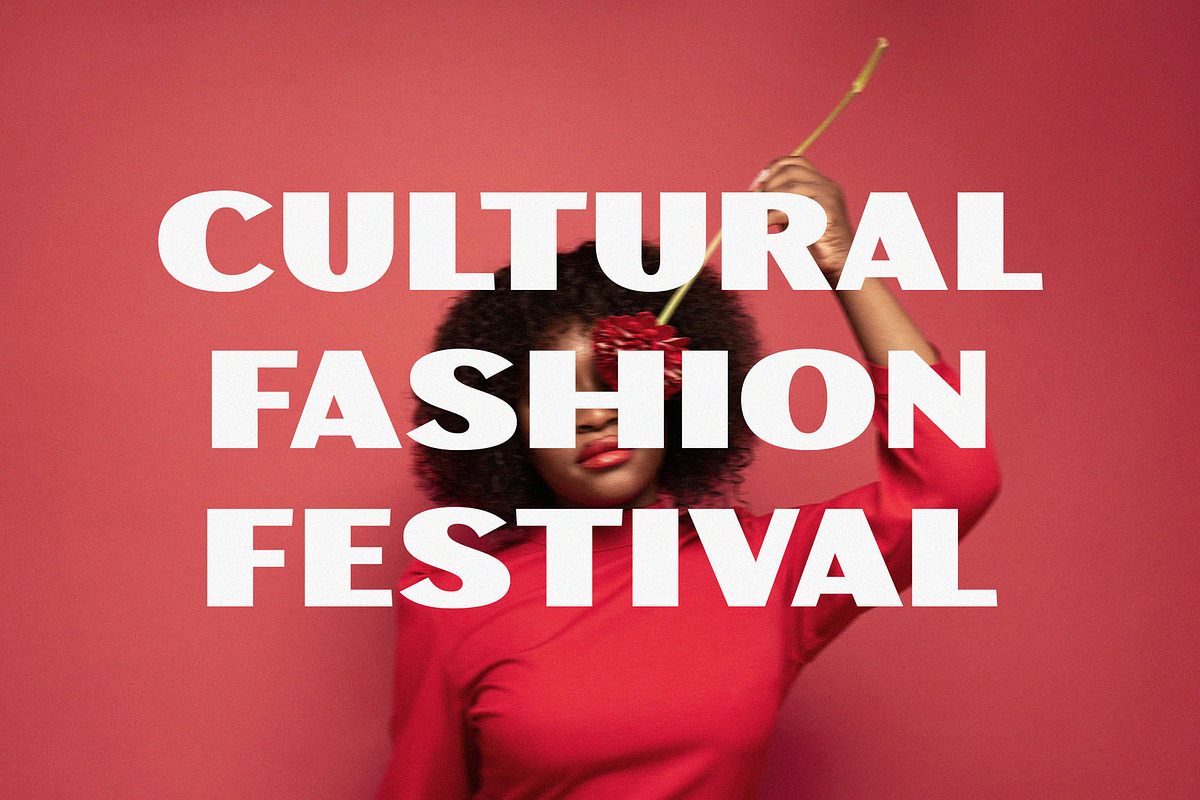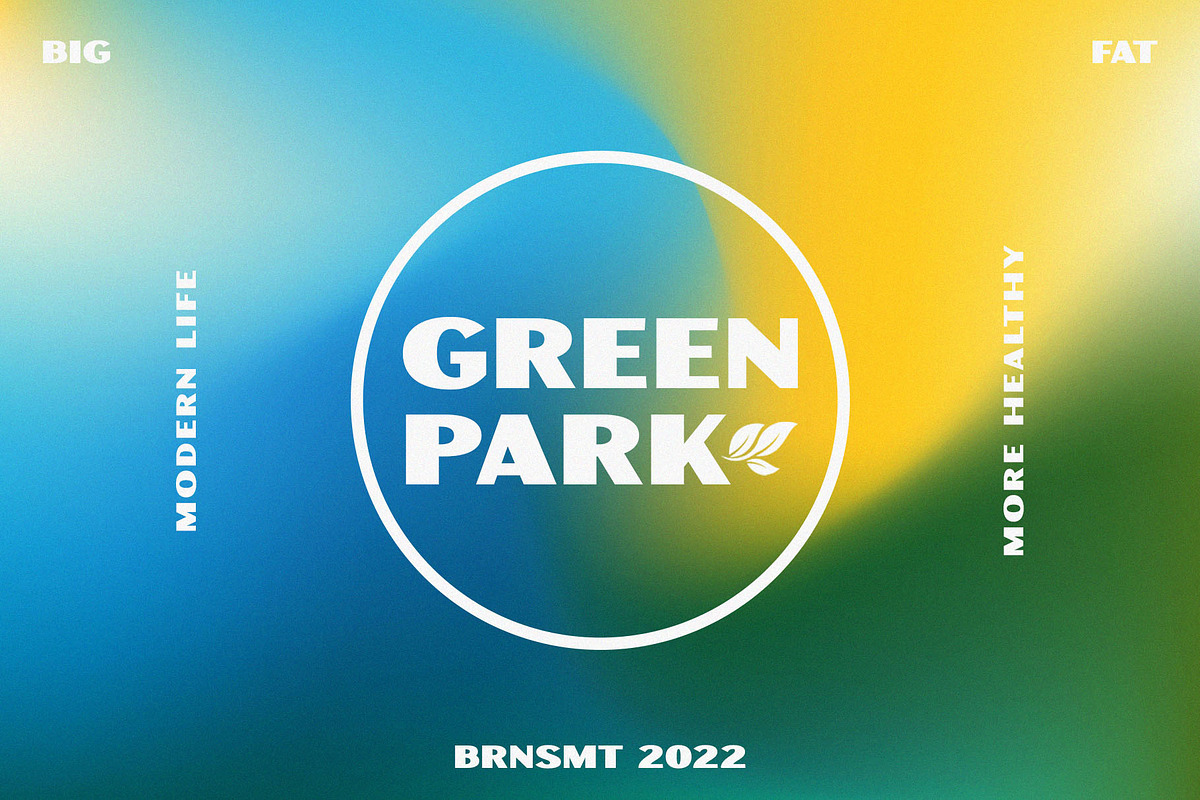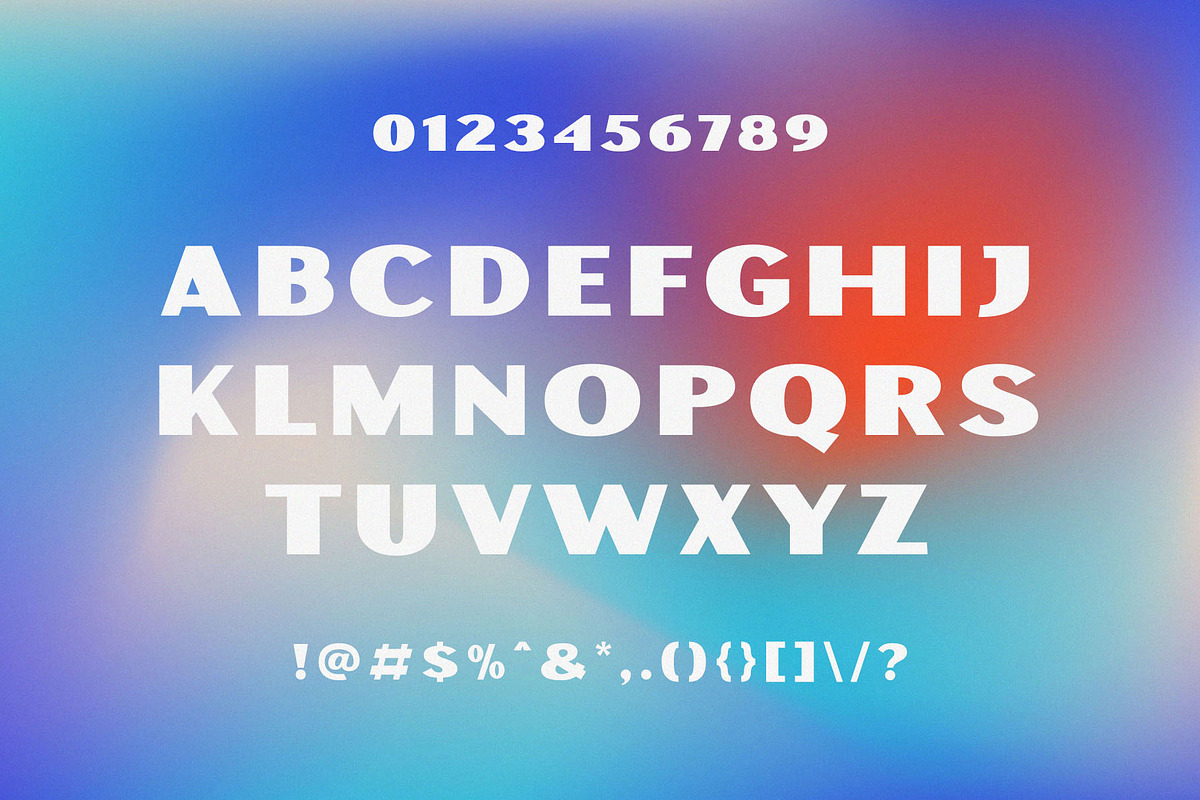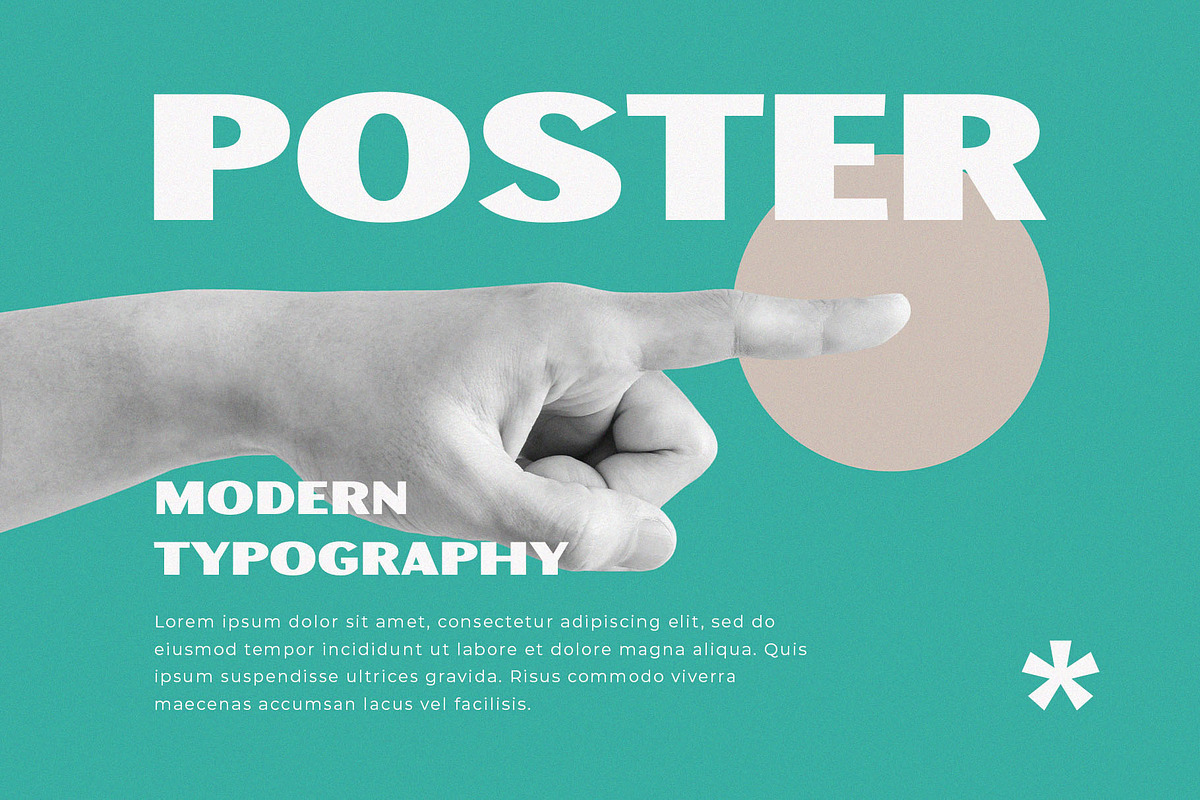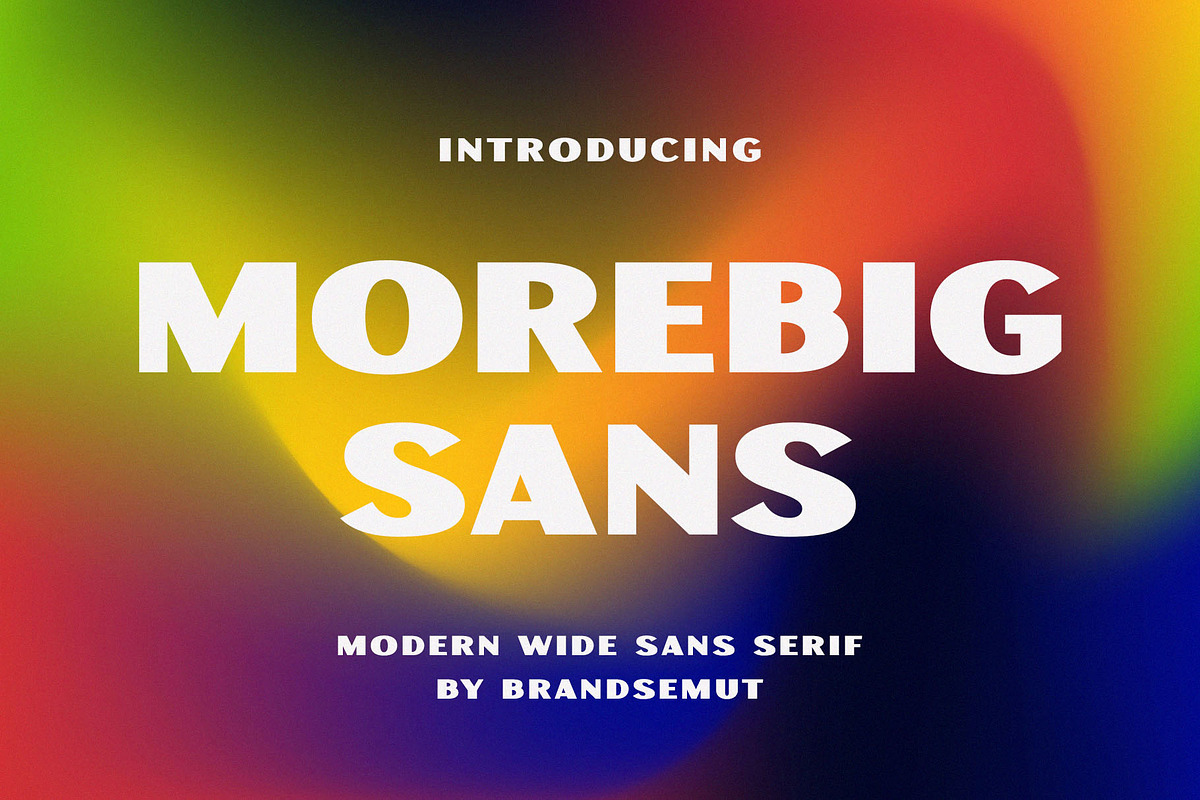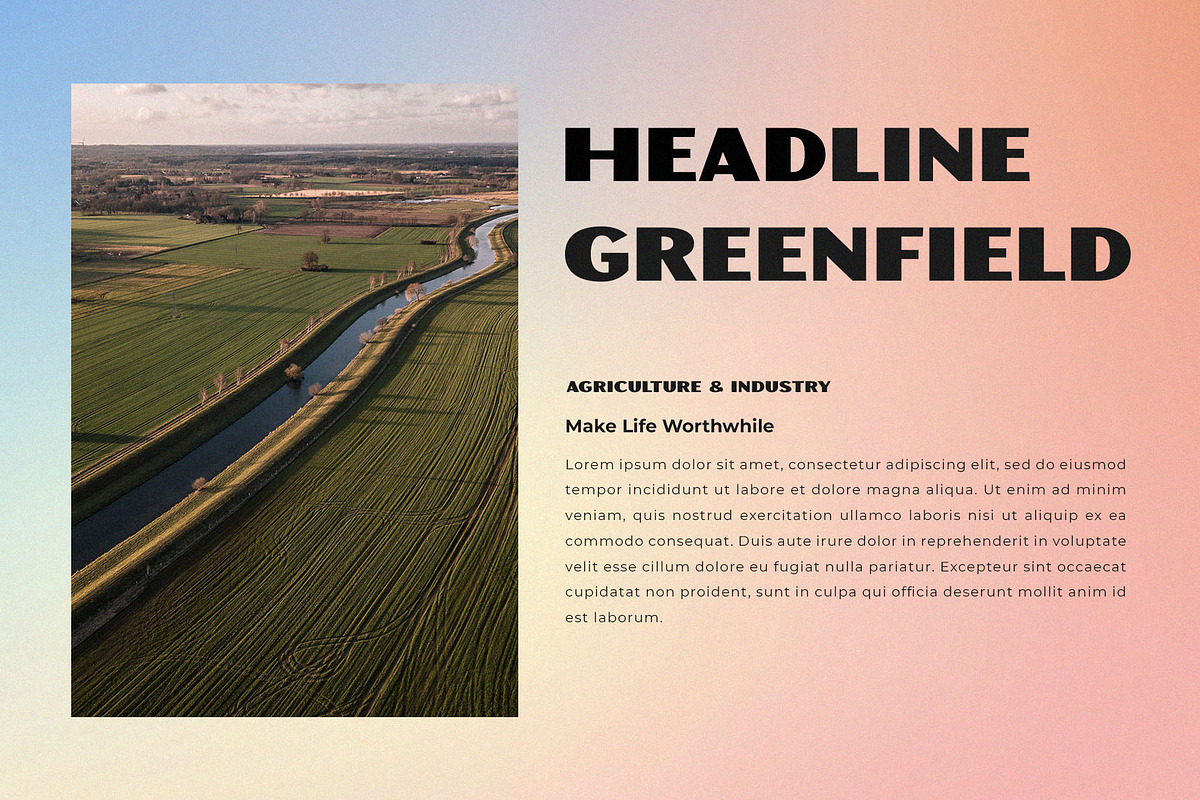
Morebig Sans || Modern Bold Sans
Introducing Morebig Modern Bold Sans Serif. Morebig Sans is a modern and classy typeface, best used as a display for headings, logos, branding, magazines, product packaging and invitations. Morebig Sans come with clean lines and smooth curves give any project an extra touch of class.